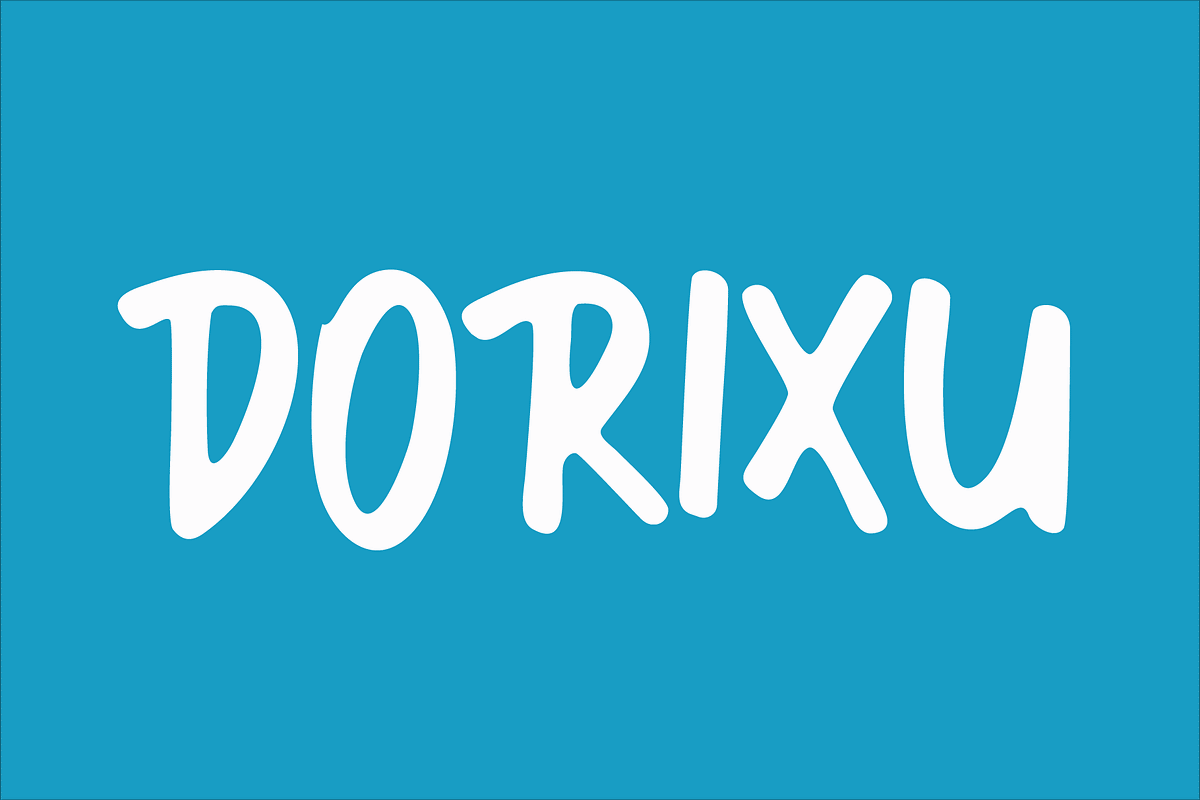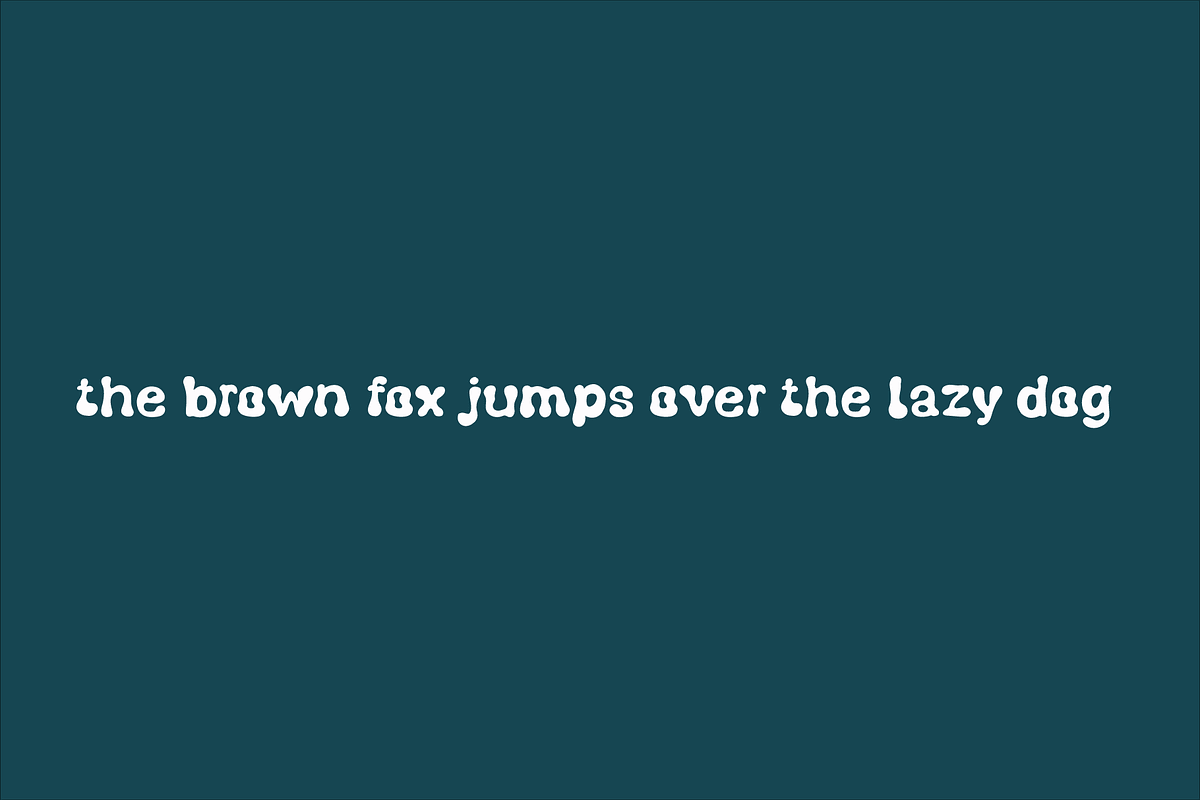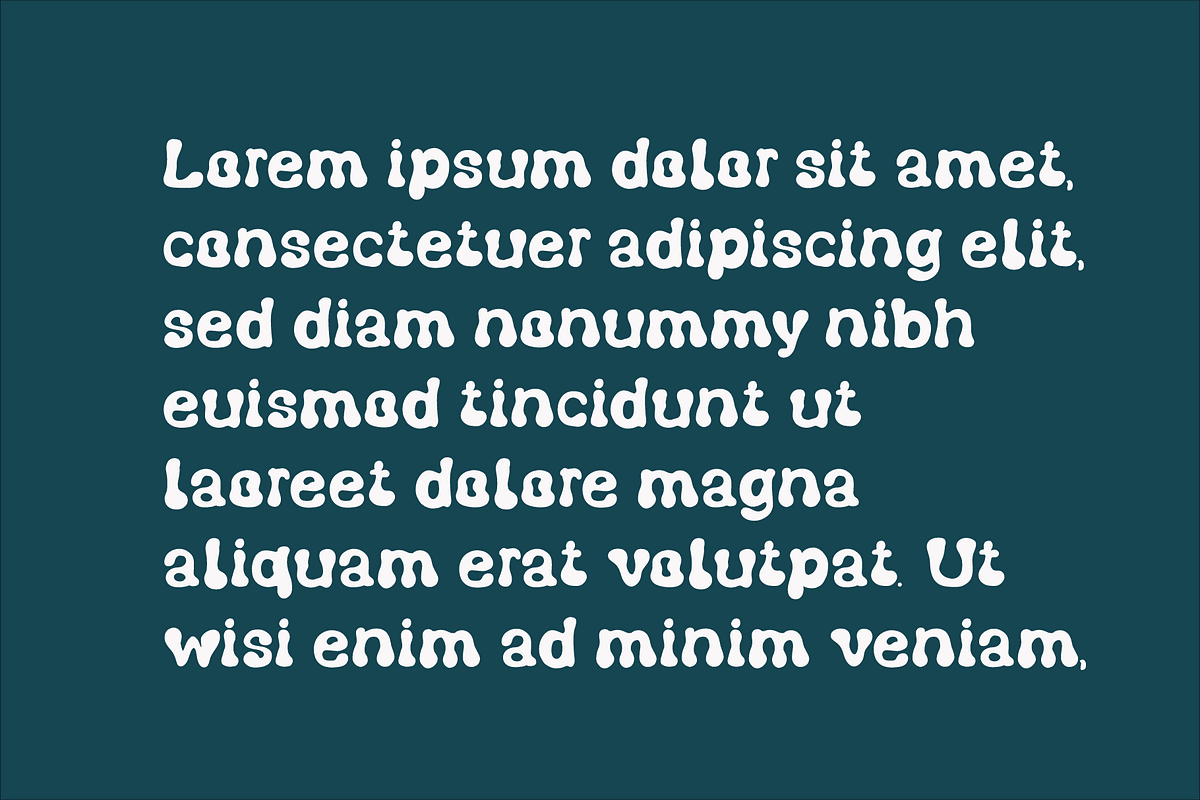
Dorixu
Introducing DORIXU , elegant simple and modern serif font. The feel is elegant and beautiful. This font brings you a beautiful and modern atmosphere. suitable for T-shirts, posters, book covers, cards, merchandise, etc.